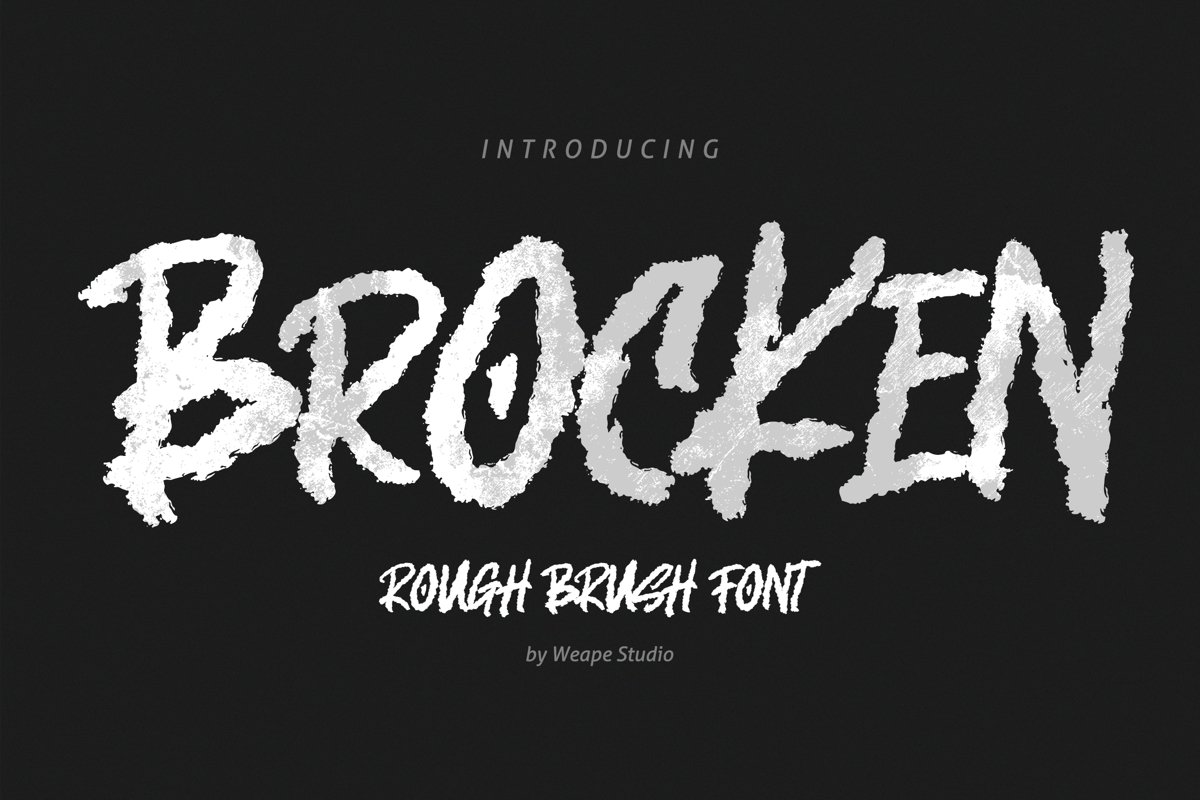
Brocken - Caps Rough Font
Brocken
Brocken is brush caps font bursting with natural rough dry brush strokes, and the stroke of hand sharp and quickly. You can use and enjoy Brocken, for anything for your projects.
And this font perfect for signature, logo, branding, poster, apparel, photography, title, social media post, ad banner, book cover, product packaging, handwritten quotes, greeting cards, and advertising. You can combine uppercase and lowercase letters with ease, and create it unique and cool design.
All fonts is capitals containing upper & lowercase characters, numerals, multilingual support and a large range of punctuation.